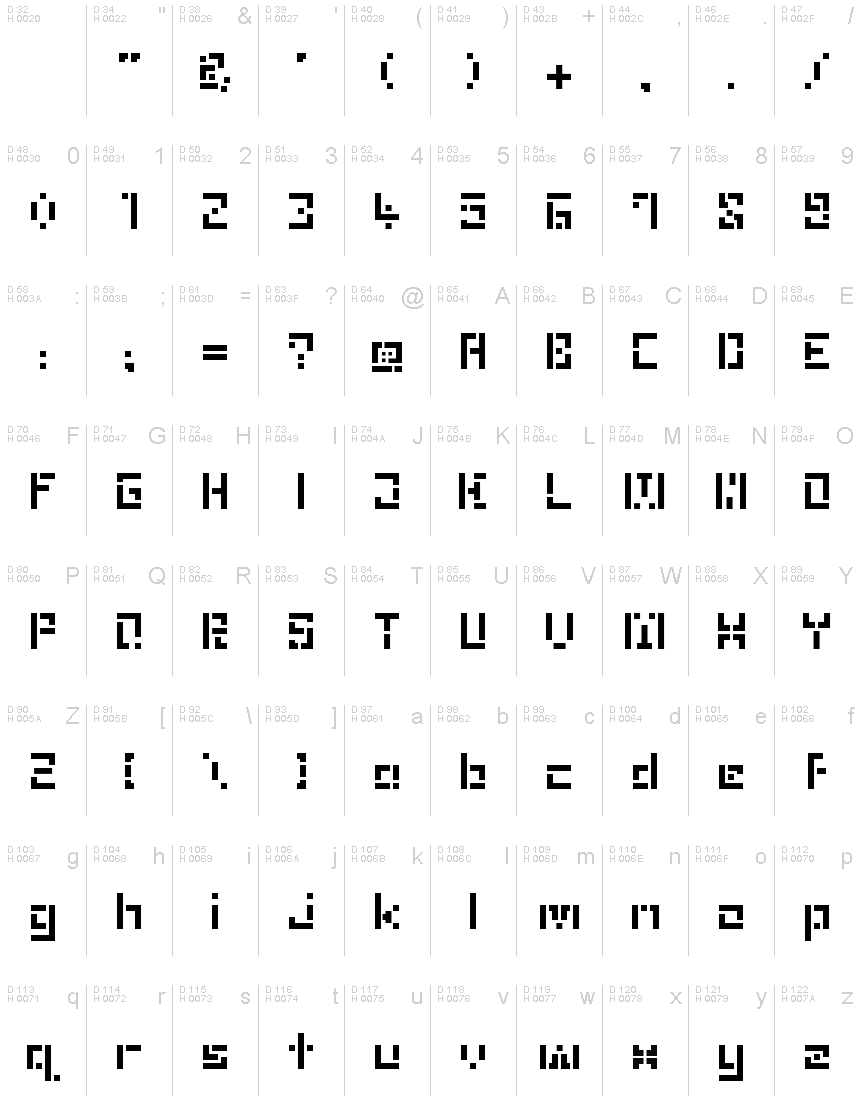
Puzzle
Puzzle is a striking display font that captivates with its bold, angular forms. Inspired by the concept of a jigsaw puzzle, each letter is a distinct piece that interlocks to create a visually dynamic and compelling whole.
The expanded width lends the font an imposing presence, while the techno-inspired aesthetic evokes a sense of futuristic sophistication. Puzzle's versatility shines across a range of applications, from eye-catching headlines to impactful branding and cutting-edge digital interfaces.
Its unique character makes it an excellent choice for designers seeking to infuse their work with a sense of intrigue and innovation.
The expanded width lends the font an imposing presence, while the techno-inspired aesthetic evokes a sense of futuristic sophistication. Puzzle's versatility shines across a range of applications, from eye-catching headlines to impactful branding and cutting-edge digital interfaces.
Its unique character makes it an excellent choice for designers seeking to infuse their work with a sense of intrigue and innovation.